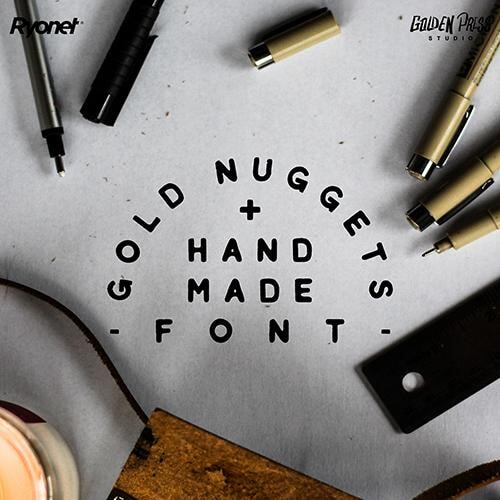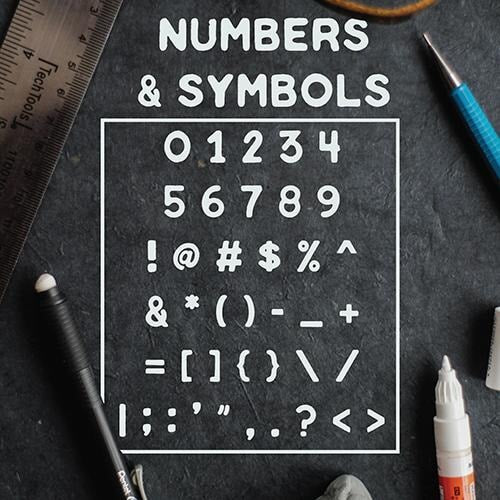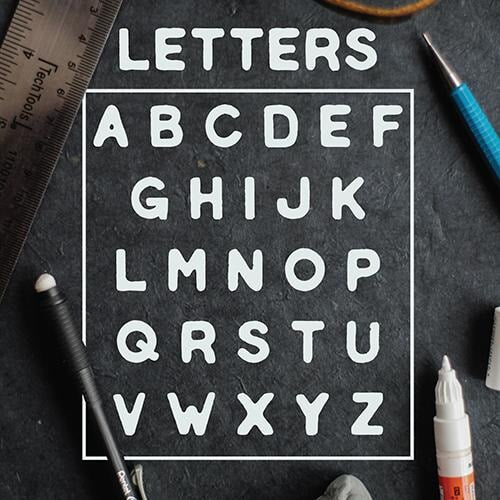
Gold Nuggets Font (Download Only)
Have you been panning the internet, looking for a gold-worthy font? Quit sifting through because you have found the Gold Nuggets Font. The all caps typeface has thick letters, velvety edges, and gentle curves. It’s great for large block text, signage, and logos. No more staring at boring, stony fonts. Put the Gold Nuggets Font to work and reap the benefits.
FEATURES
• Includes one styles: solid
• Perfect for your next design or print project
• All letters, numbers, and symbols are included